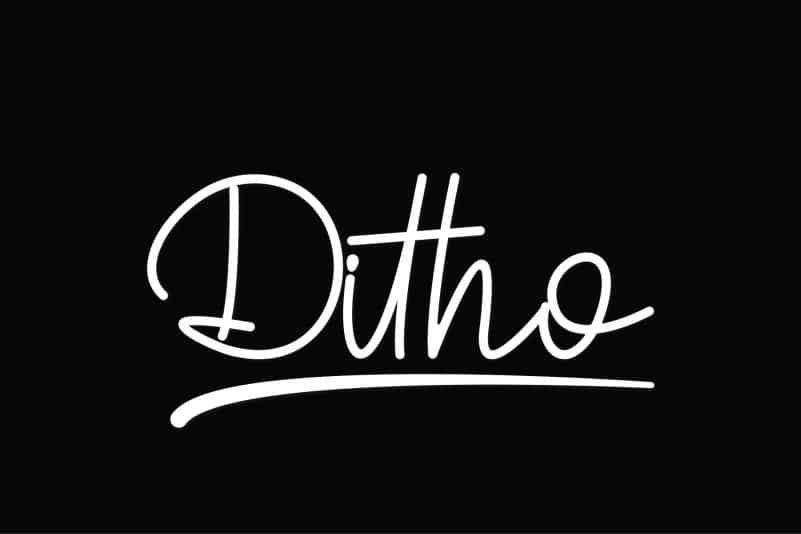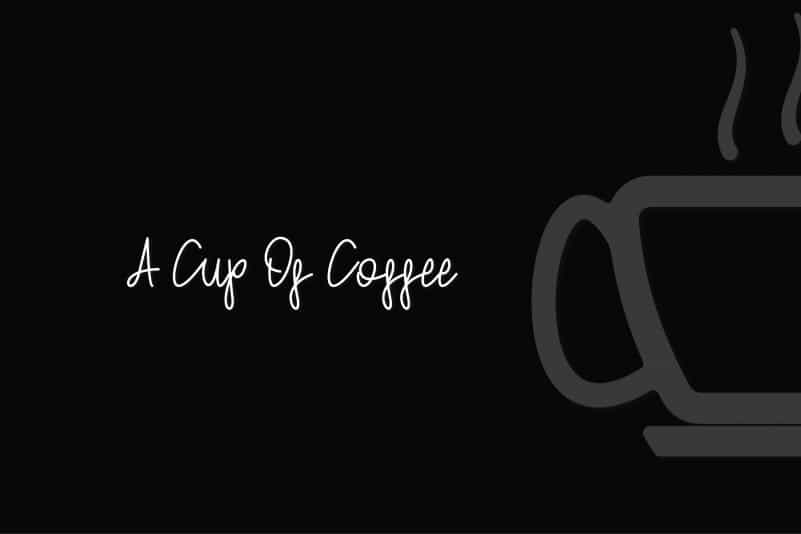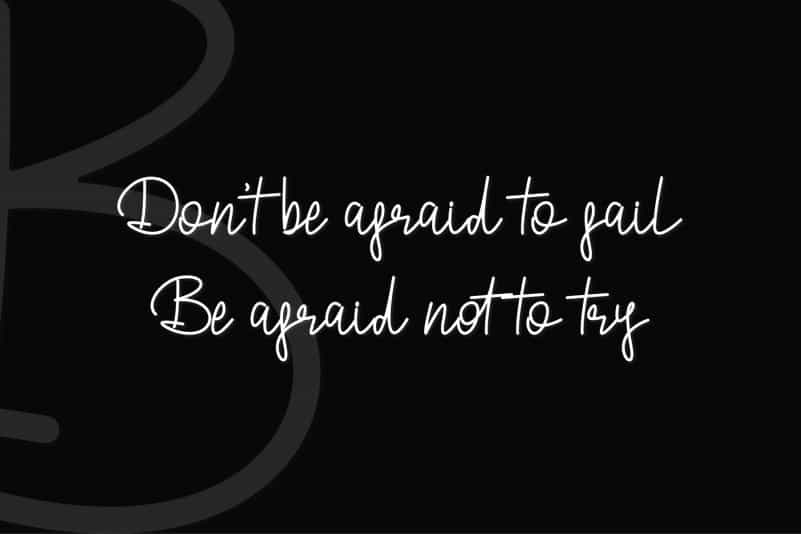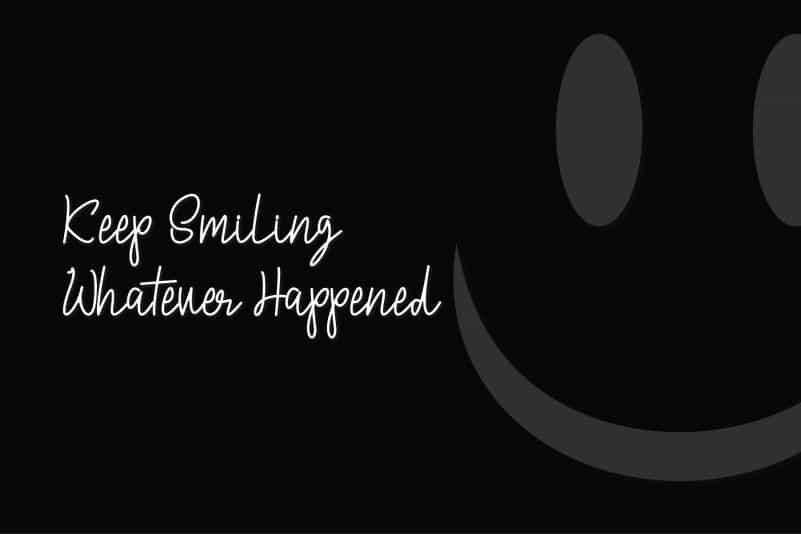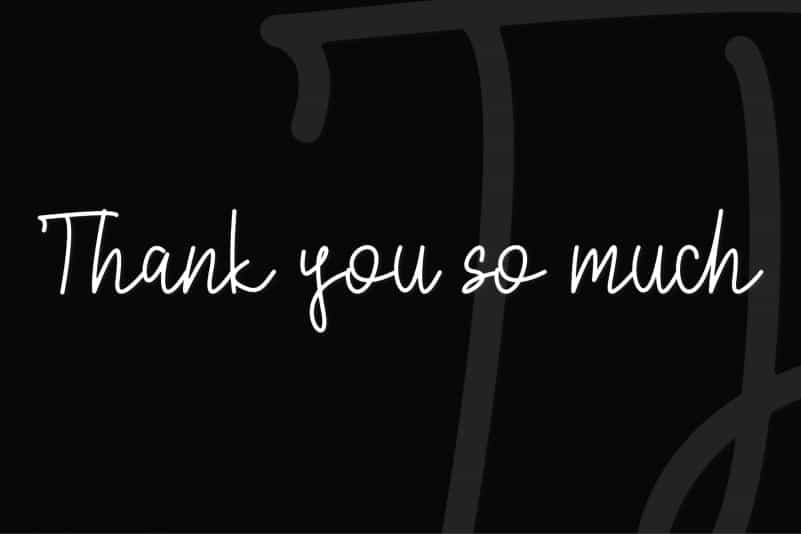
Ditho Handwritten Script Font
Introducing Ditho – a clean and charming handwritten font!
With its smooth strokes and natural handwritten feel, Ditho brings a casual yet elegant touch to your designs. It’s perfect for creating warm and personal vibes in quotes, invitations, logos, product packaging, digital planners, and social media posts.
💡 Great for:
• Wedding invitations & greeting cards
• Quotes & inspirational posters
• Social media templates & journaling
• Product packaging & branding
• DIY projects (Cricut, Procreate, Canva, etc.)
Make your words shine with the handwritten beauty of Ditho ✨